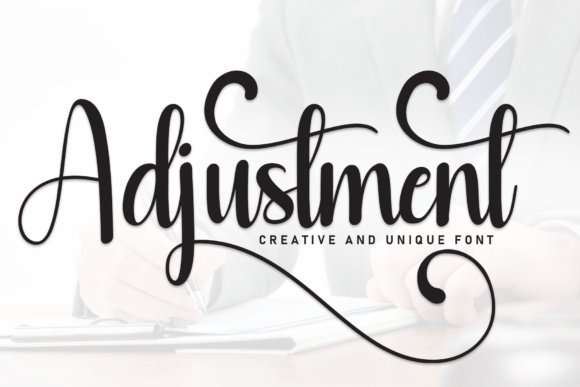
Introducing Adjustment Font, the Exquisite Script Font Family Designed to Elevate Your Creative Visions
Prepare to be enchanted by Adjustment Font, a mesmerizing handwritten font family that oozes elegance and sophistication. Meticulously crafted to awaken the artist within, this font breathes life into your designs, transforming them into captivating masterpieces. Whether you seek fonts for Instagram to elevate your social media presence or yearn for calligraphy scripts to infuse your DIY projects with a touch of magic, Adjustment Font stands as your unwavering companion.
Unleash Your Inner Artist: Explore Endless Creative Possibilities
With Adjustment Font, the possibilities are boundless. Let your imagination soar as you discover the transformative power of this enchanting font. Design mugs that radiate warmth and personality, adding a personal touch to your morning coffee ritual. Create eye-catching posters that captivate audiences, leaving an indelible mark on their hearts. Design logos that exude professionalism and sophistication, propelling your brand towards new heights of success. The versatility of Adjustment Font knows no limits, empowering you to weave your creative magic across a myriad of projects.
Capture Hearts with Every Stroke: Express Emotions with Utmost Grace
Adjustment Font is more than just a font; it's an artistic expression that speaks volumes. Through its graceful strokes, you can convey a symphony of emotions, from the warmth of love to the depth of sorrow. Design wedding invitations that evoke a sense of timeless romance, encapsulating the essence of your special day. Create greeting cards that touch hearts with their heartfelt messages, leaving a lasting impression on your loved ones. With Adjustment Font, your designs become vessels of emotion, carrying your sentiments with elegance and poise.
A Legacy of Excellence: The Timeless Appeal of Adjustment Font
A testament to its enduring charm, Adjustment Font has been recognized and celebrated by design enthusiasts worldwide. It has graced the covers of renowned magazines, adding a touch of sophistication to their pages. Its popularity extends to social media platforms, where countless users have embraced its beauty, using it to create captivating content that captivates and inspires. By choosing Adjustment Font, you become part of a legacy of excellence, a community of creatives who appreciate and value the art of exceptional typography.